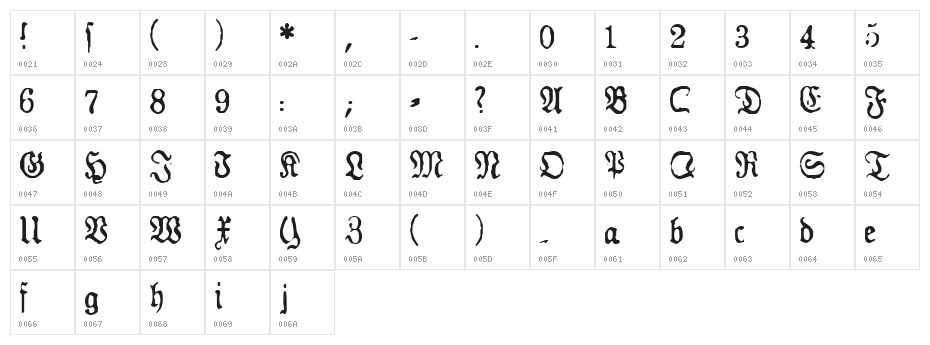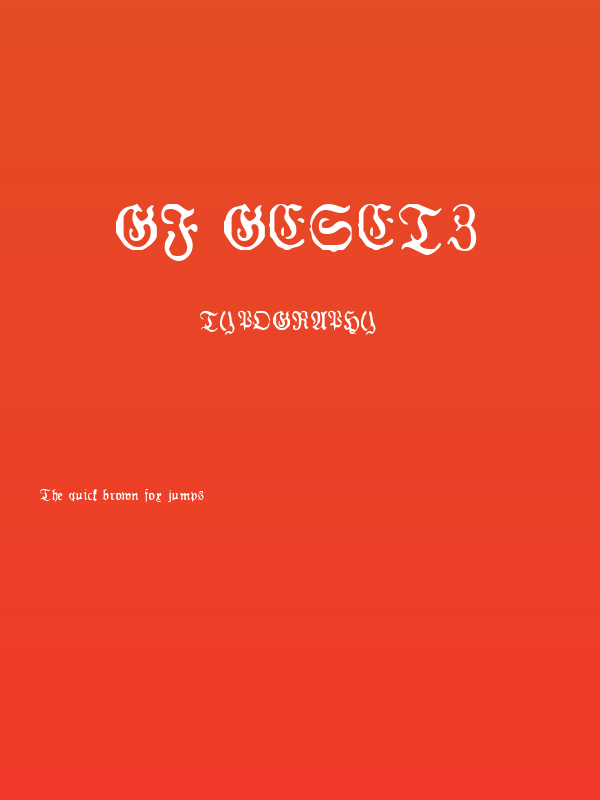
GF Gesetz Font
GF Gesetz Description
This font exhibits a classic blackletter style, characterized by its ornate and intricate letterforms. The uppercase letters are bold and dramatic, with sharp angles and flourishes that evoke a sense of historical elegance. The lowercase letters maintain a similar aesthetic, featuring unique curves and strokes that enhance readability while preserving the decorative nature. Numbers and special characters are designed to complement the overall style, ensuring consistency across all elements. The font's distinct appearance makes it ideal for projects that require a touch of tradition and sophistication.
| Proposed Projects | Suitable for wedding invitations, historical documents, branding for luxury products, or any project seeking a vintage or gothic aesthetic. |